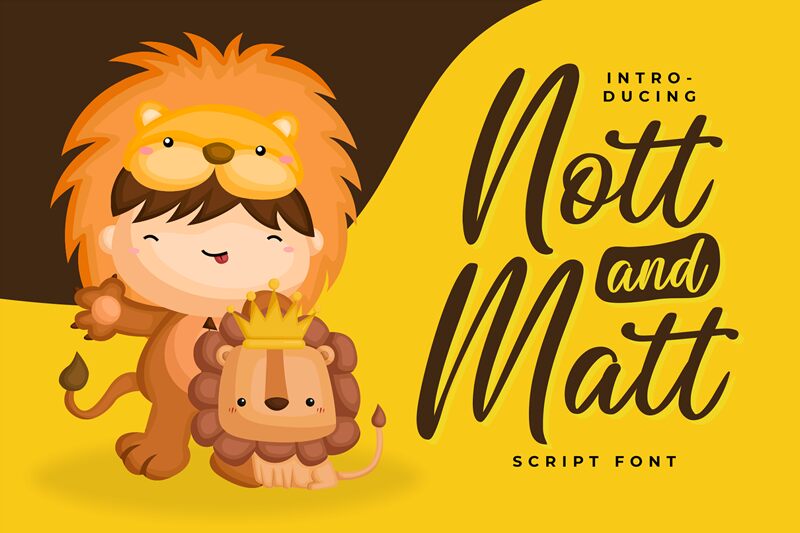
Nott and Matt Regular
Nott and Matt font - a burst of individuality and creativity - is the latest masterpiece handpainted brush font by Brithos Type. Crafted in a handwritten style, its full weight font provides just the right amount of uniqueness without being overly puny.
Whether you're working on graphics for social media, branding work, wedding designs or advertisements or product packaging Nott and matt is guaranteed to be a huge time saver!